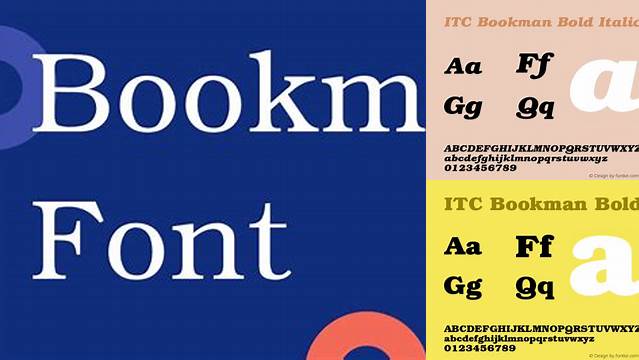
Hey guys! Are you on the hunt for a classic and reliable font that can add a touch of elegance and readability to your projects? Look no further because we're diving deep into the world of ITC Bookman Std Bold, and the best part? You can snag it for free! This article is your ultimate guide to everything you need to know about this fantastic font, including how to download it, its uses, and some cool tips to make your designs pop. So, buckle up, and let's get started!
H2: Unveiling the Charm of ITC Bookman Std Bold
ITC Bookman Std Bold isn't just a font; it's a statement. Its history is rich, rooted in the need for a typeface that was both functional and aesthetically pleasing. It was designed as a more readable alternative to some of the bolder display fonts of the time. This font has a classic look, with its sturdy serifs and balanced letterforms. It's a workhorse font that works across a variety of design applications, from print to digital. When you choose ITC Bookman Std Bold, you're choosing a font that is versatile enough to be used for everything from body text to headlines, and even in branding. Its design is based on a revival of the 19th-century typeface, which makes it feel both classic and modern at the same time. It has a unique blend of elegance and legibility. Many designers appreciate its friendly, approachable look. ITC Bookman Std Bold stands out because of its ability to maintain readability, even at smaller sizes. This is a huge advantage for designers. This feature ensures that your message gets through clearly to your audience. Its bold weight adds emphasis without overwhelming the design. This makes it perfect for drawing attention to important information. The font's versatility allows it to pair well with a variety of other typefaces. This offers you a wide range of creative possibilities. Whether you are working on a book, a website, or an advertisement, ITC Bookman Std Bold will add sophistication. It is more than just a font; it's a design tool. It helps make your work look professional and refined. It has a timeless aesthetic. It is a solid choice for any project. With its rich history and unique features, ITC Bookman Std Bold continues to be a favorite among designers. It is a testament to the enduring power of good design. It can add a touch of class to any creative project. When you choose this font, you're investing in a piece of design history that will serve you well. It's a font that’s stood the test of time. It continues to be a symbol of quality and good design. It's your secret weapon in the world of design!
H3: The History and Design of Bookman
Let's take a quick trip down memory lane, shall we? The story of ITC Bookman Std Bold begins in the late 19th century. It was inspired by the original Bookman typeface, designed to be a clear and readable font. This made it perfect for various printing applications. Its roots go back to a time when readability was paramount. The font evolved, with variations like bold and italic adding to its versatility. ITC Bookman Std Bold is a digital adaptation. It has brought the classic charm to modern design. The design of this font is characterized by its strong serifs and sturdy structure. These are designed to enhance readability. This feature is particularly useful in body text. The bold weight adds emphasis without sacrificing clarity. It gives the font a powerful presence. The letterforms are carefully crafted, with a balance that makes it both elegant and approachable. Designers have long appreciated the font's versatility. It’s perfect for a wide range of design projects. It’s an excellent choice for a variety of applications. ITC Bookman Std Bold continues to be a symbol of classic design. The enduring appeal shows the quality of its design. This makes it a great option for your projects. The font's timeless appeal is still a classic. Its history and design make it a font that is trusted. Designers can still rely on it for their projects. It has played an important role in design. It adds a sense of history and reliability to any project. Its bold weight gives it a unique touch. When it comes to creating visually appealing and readable designs, ITC Bookman Std Bold shines! The history is something you can always count on. It will always be there. It helps you to create the perfect design.